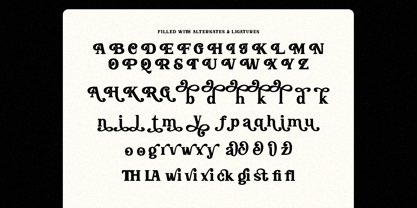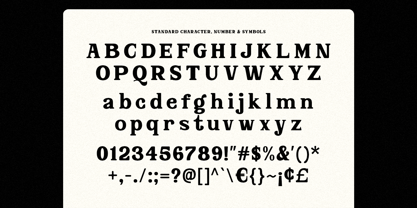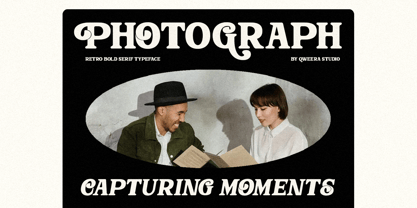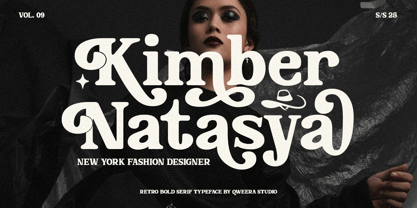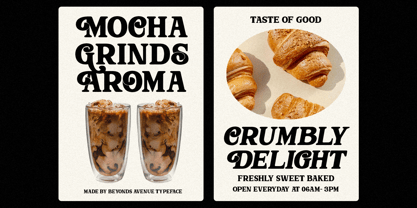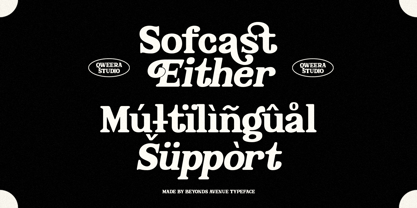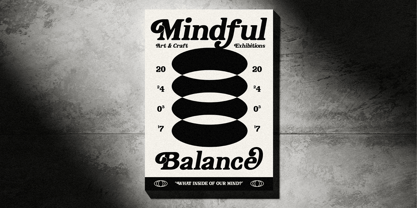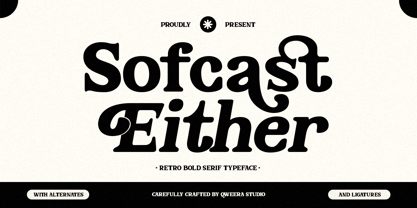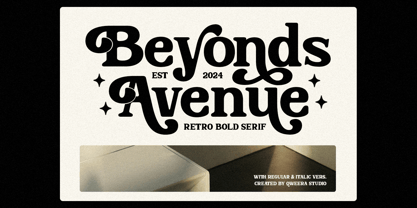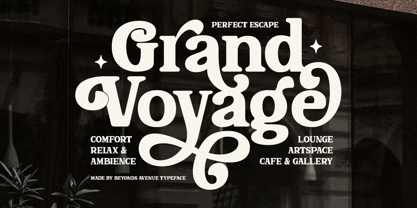
Beyonds Avenue
by Qweera Studio
The Beyonds Avenue Font Family was designed by Idhham Cholid Rikzano Yahya and published by Qweera Studio. Beyonds Avenue contains 2 styles and family package options.
Beyonds Avenue - A Stylish and Versatile Retro Bold Serif Font
Beyonds Avenue is a retro bold serif font that combines classic and modern character with a cool touch. Designed to deliver a strong and bold impression, this font comes with stylish alternates and ligatures, making it easy for users to create unique and customized designs.
This font is perfect for various design needs, such as posters, magazines, branding, and other print designs. With its bold appearance and high flexibility, Beyonds Avenue is the ideal choice for bringing elegant retro vibes to your creations.
• Regular & Italic
• All Multilingual symbol
• Opentype features ( ligature, alternate )
Multilingual character supports : (Afrikaans, Albanian, Catalan, Croatian, Czech, Danish, Dutch, English, Estonian, Finnish, French, German, Hungarian, Icelandic, Italian, Lithuanian, Maltese, Norwegian, Polish, Portuguese, Slovenian, Spanish, Swedish, Turkish, Zulu)